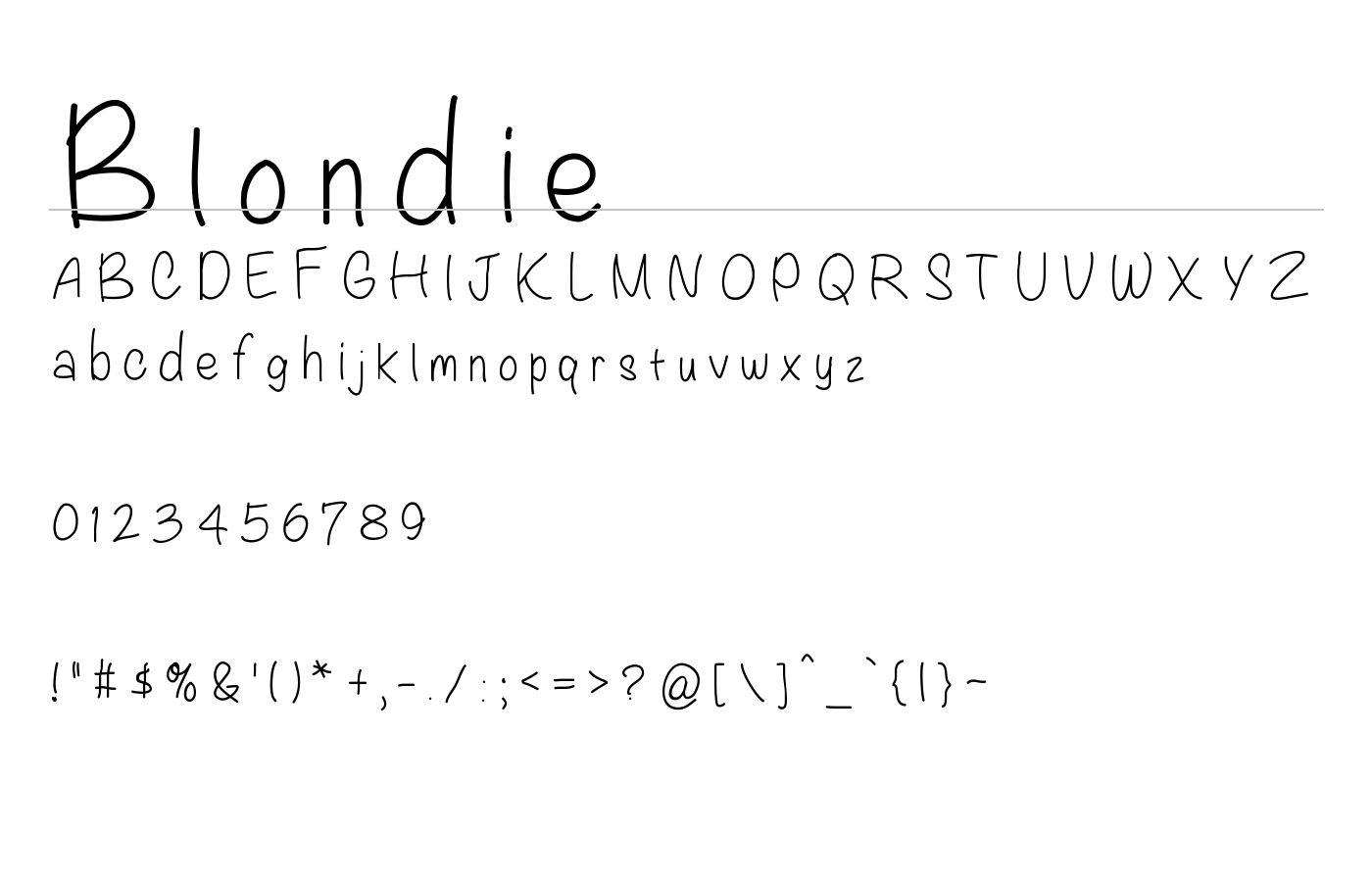
Blondie is a light, handwritten sans serif font with a casual and friendly feel. Its narrow, slightly irregular letterforms and simple strokes make it perfect for creating an approachable, playful look that works well for informal branding, invitations, and personal projects. This font’s airy spacing and whimsical style add a touch of charm without overwhelming the design.
Blondie Font